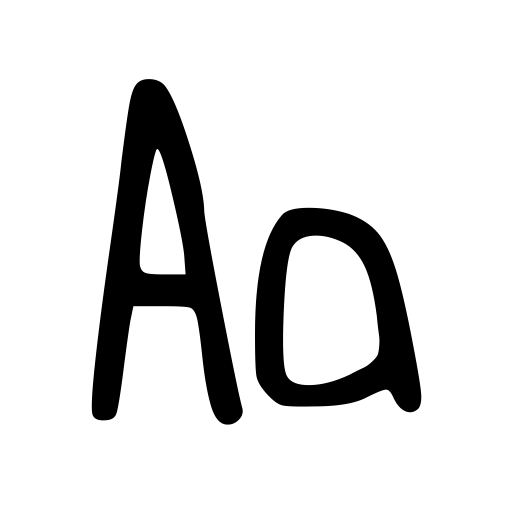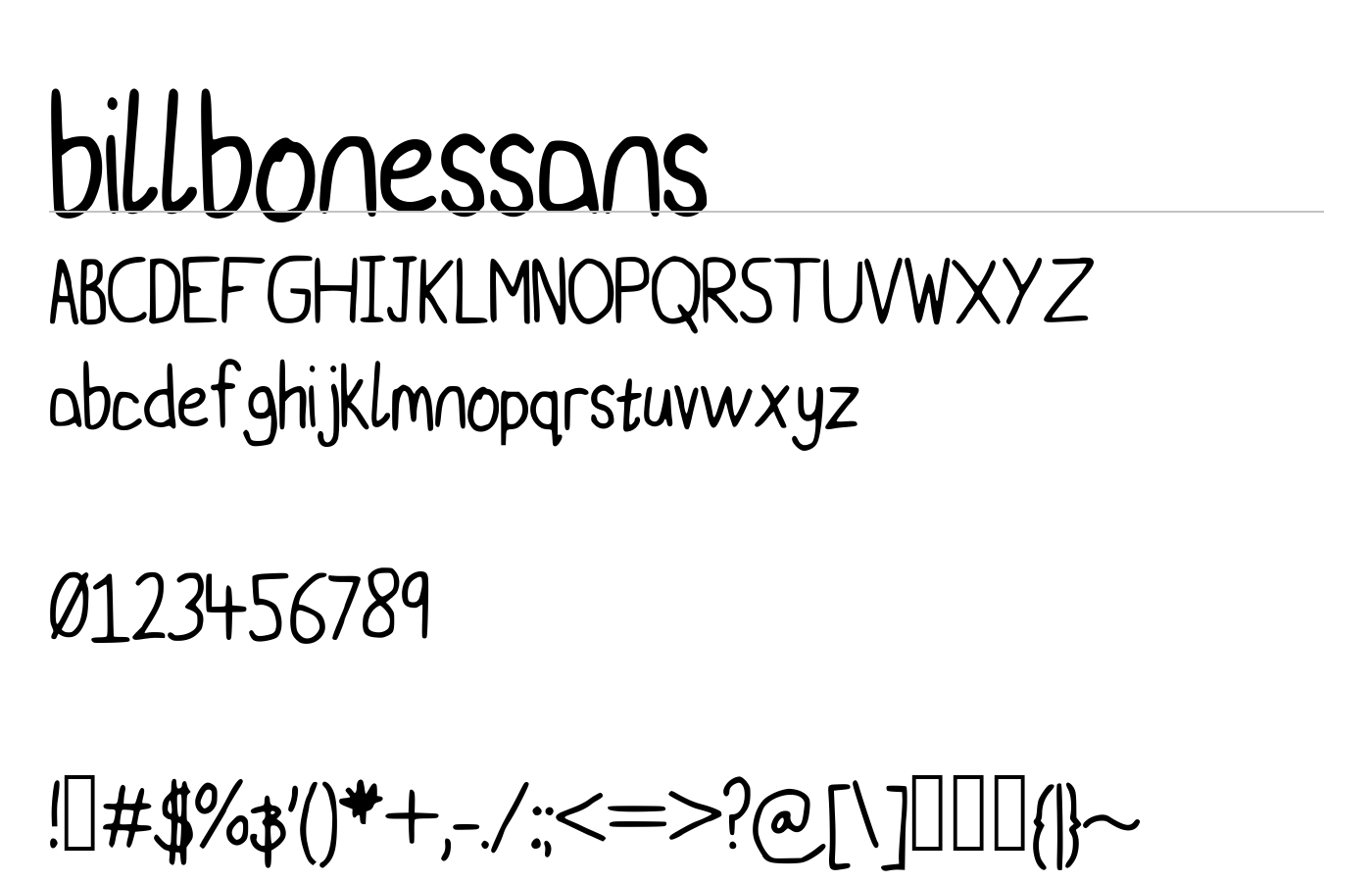
Billbonessans is a casual, handwritten sans serif font with a playful and friendly character. Its tall, narrow letterforms, uneven strokes, and irregular shapes give it a quirky and approachable feel, making it ideal for informal, creative projects like children's books, fun branding, or casual invitations. This font works best in display sizes and contexts where a lighthearted, personal touch is desired.
billbonessans Font
About billbonessans Font